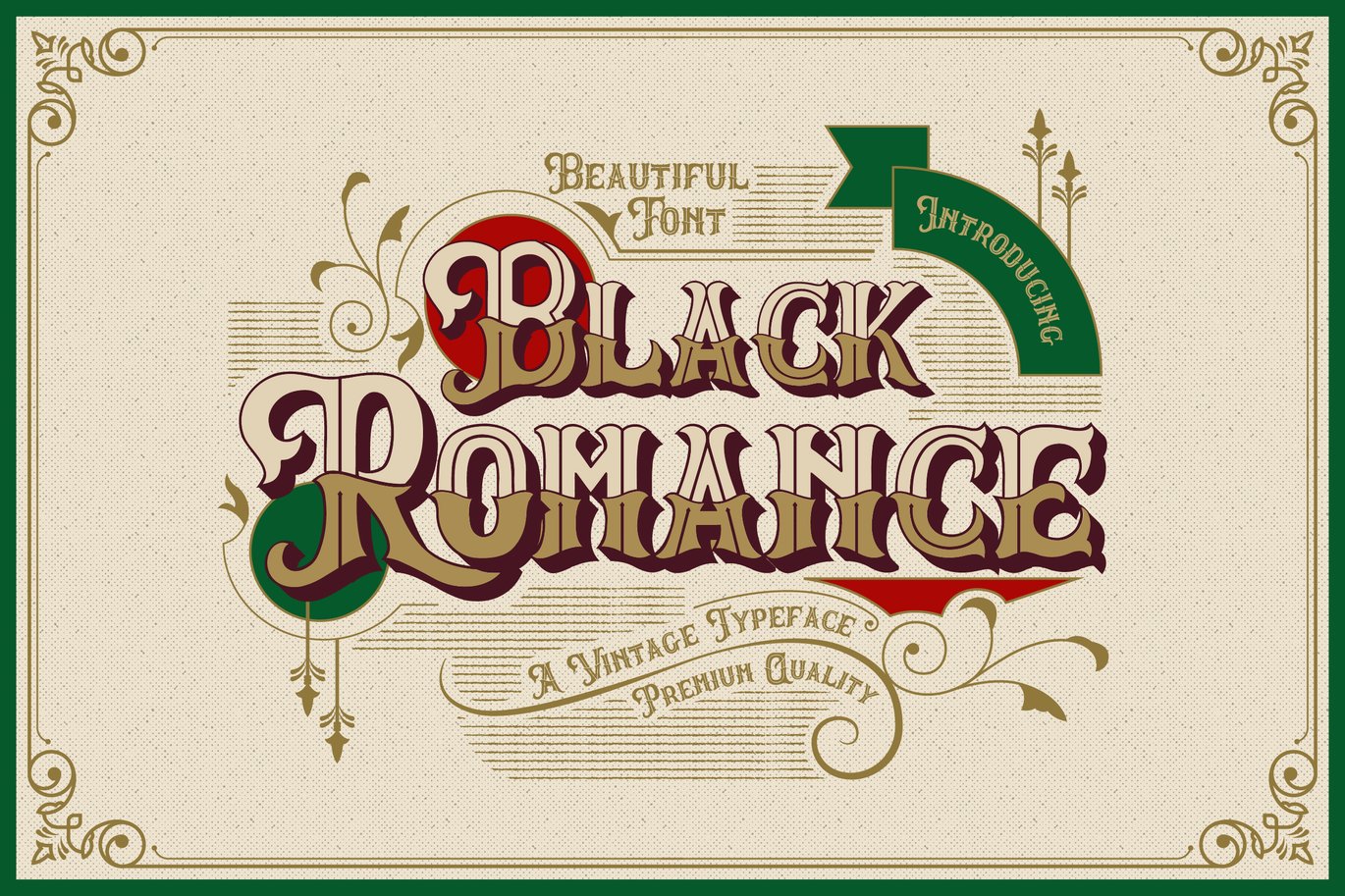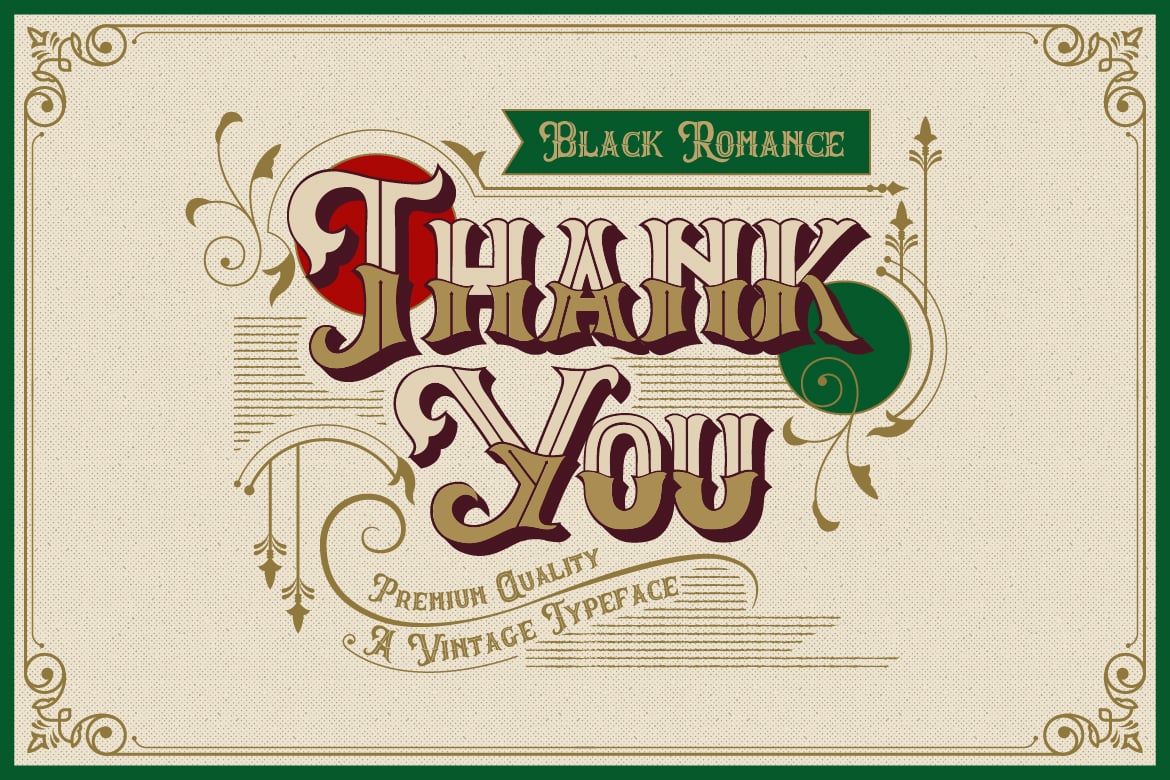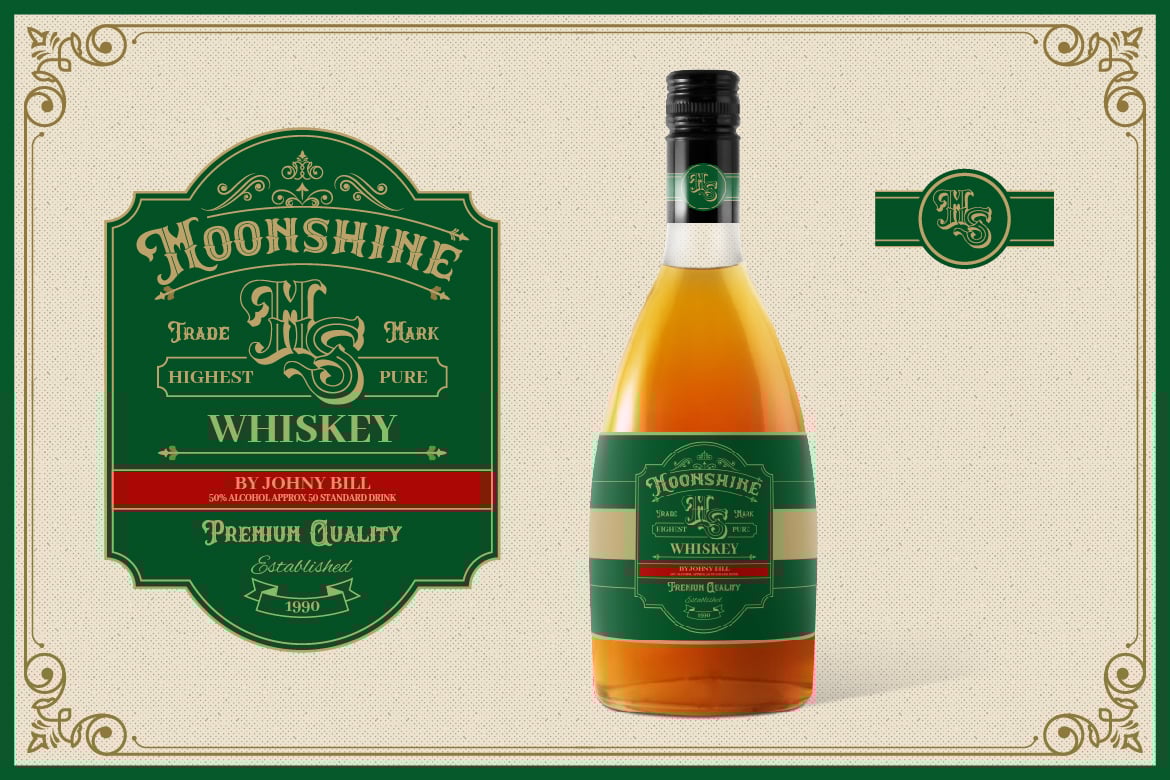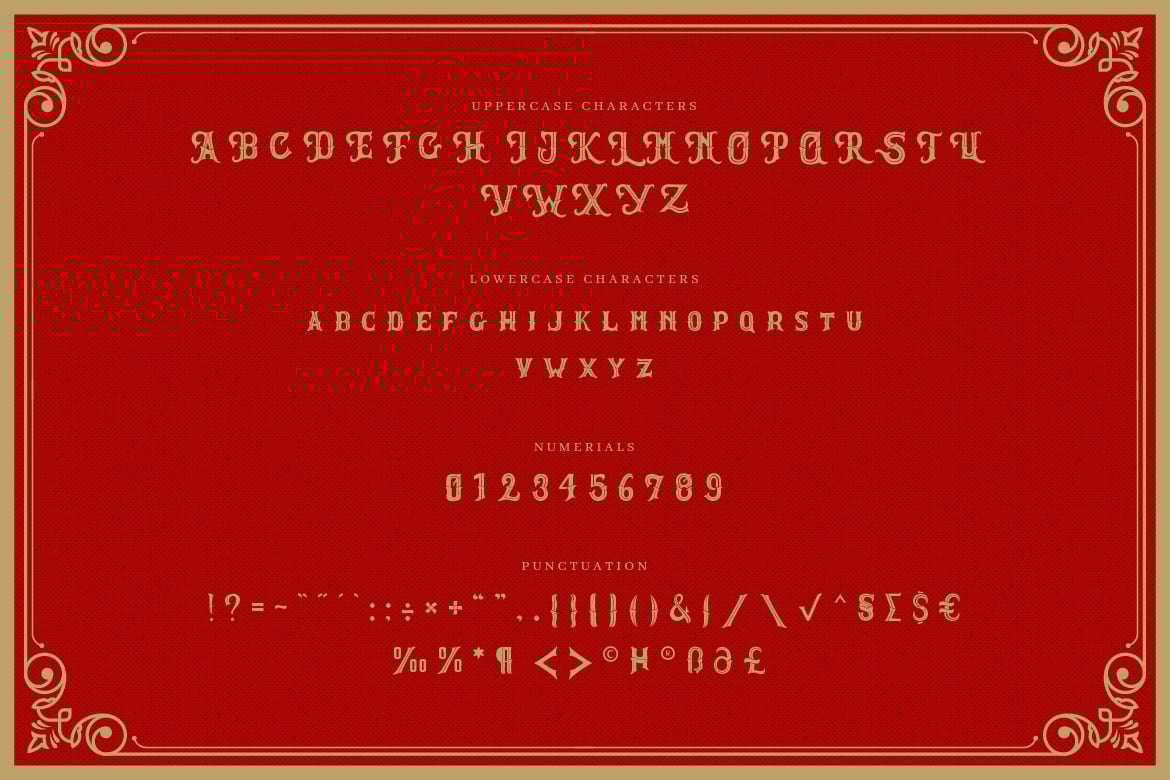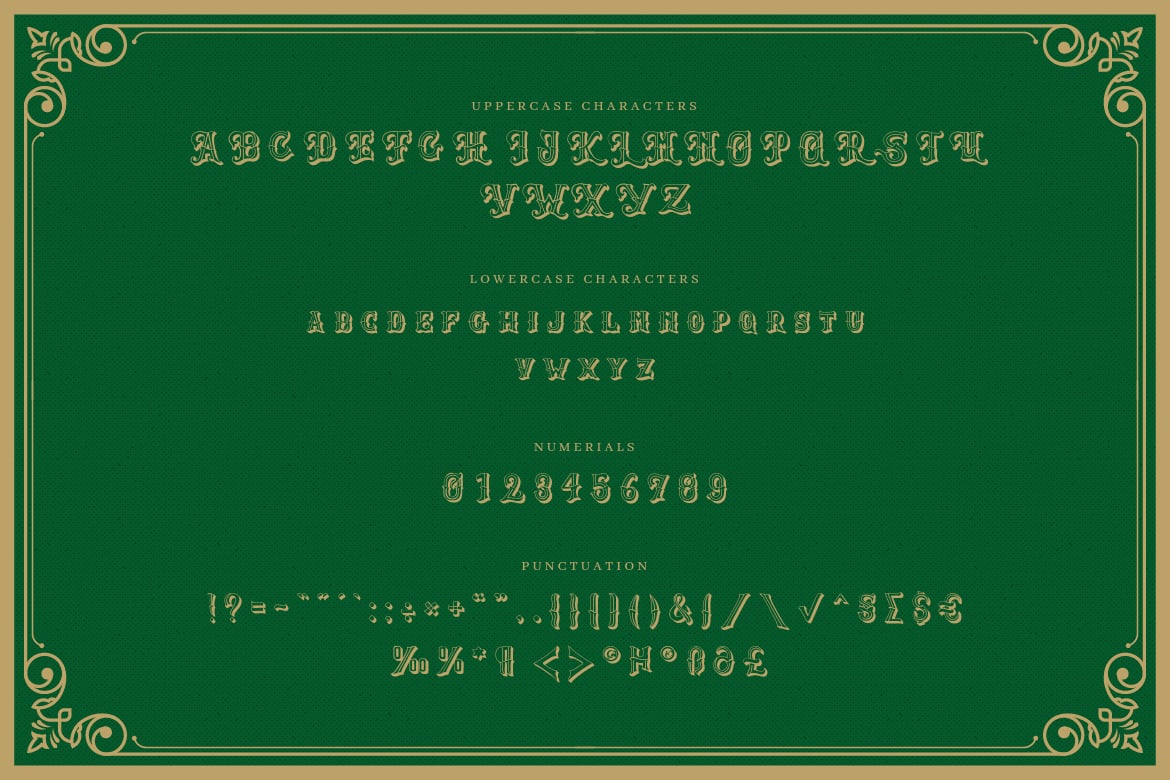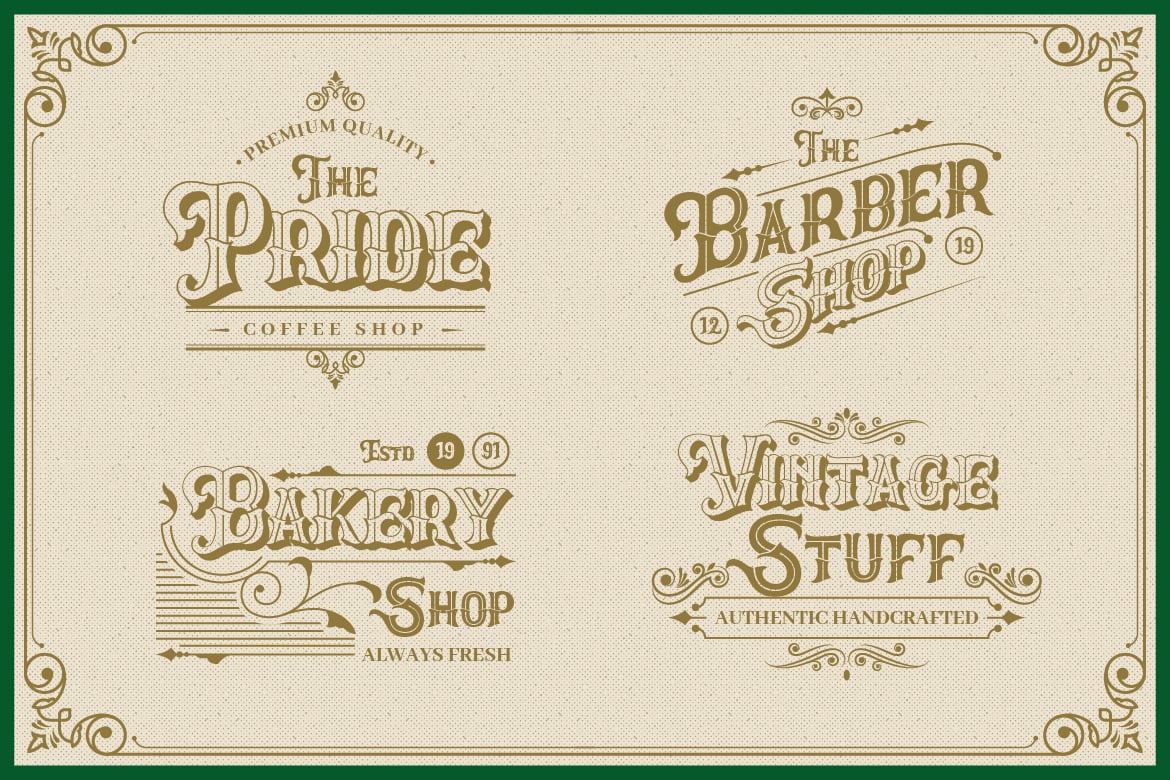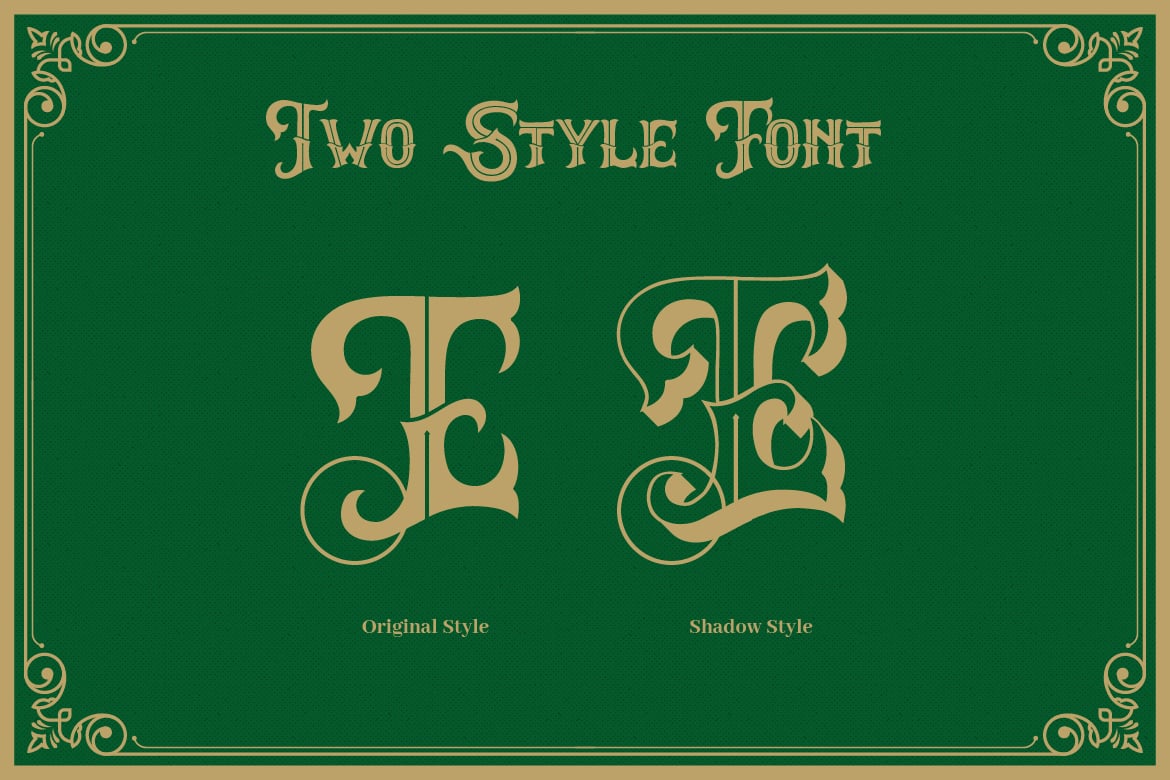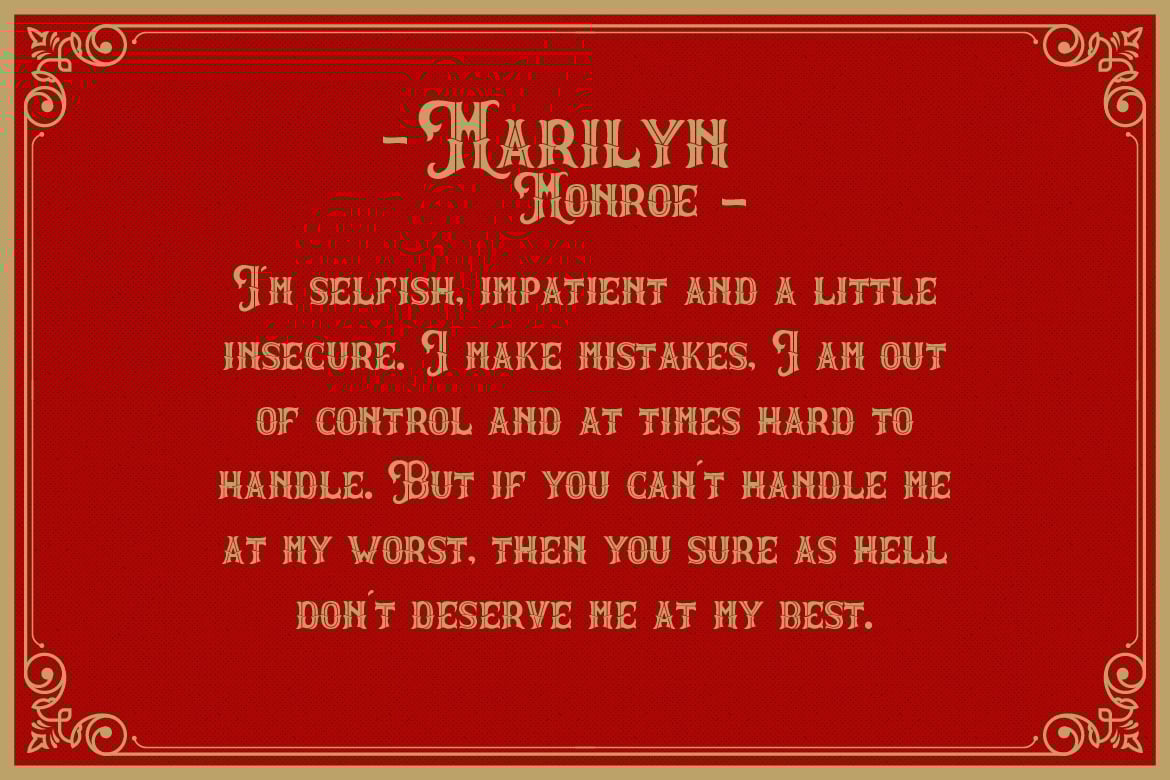
Black Romance – Vintage Blackletter Shadow Font
Introducing Black Romance font. Are you looking for a bold vintage decorative font that has a blackletter feeling? We can help! Try to download our Black Romance font. The font is suitable to use for many vintage related occasion such as product, branding, invitation, banner, movie title, brand, event, and many more. We also include the shadow version so you can have more fun with it 🙂